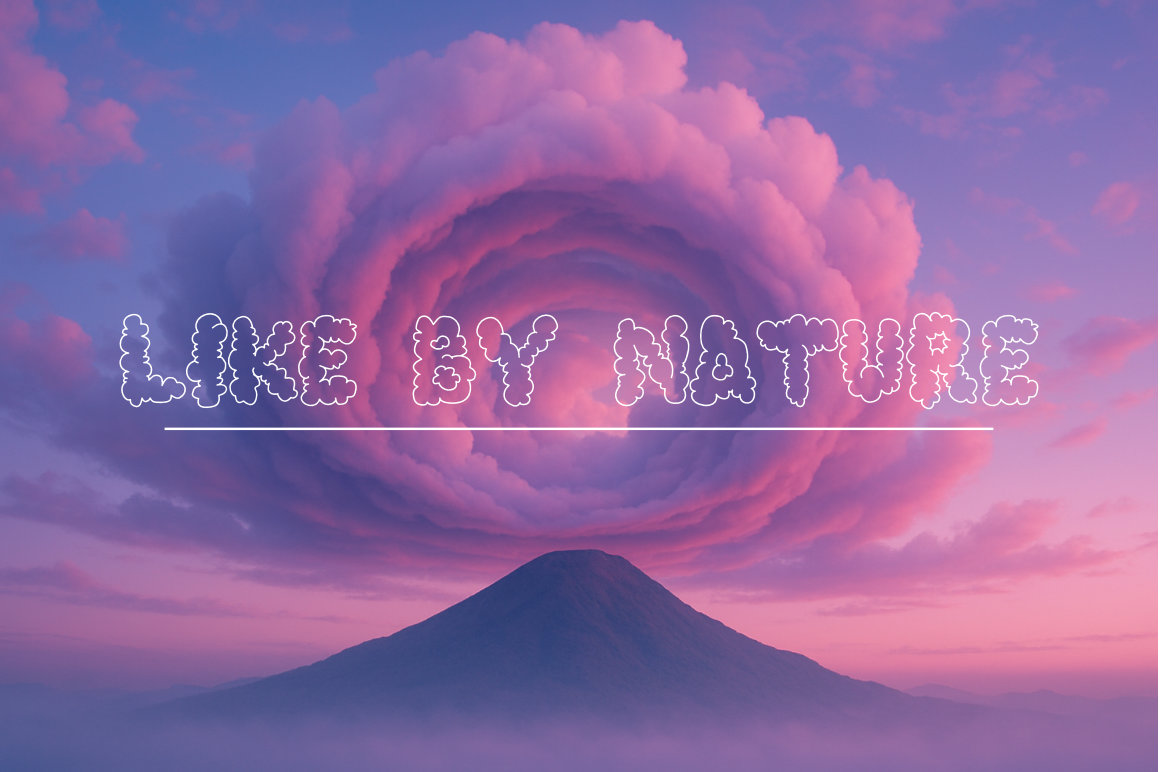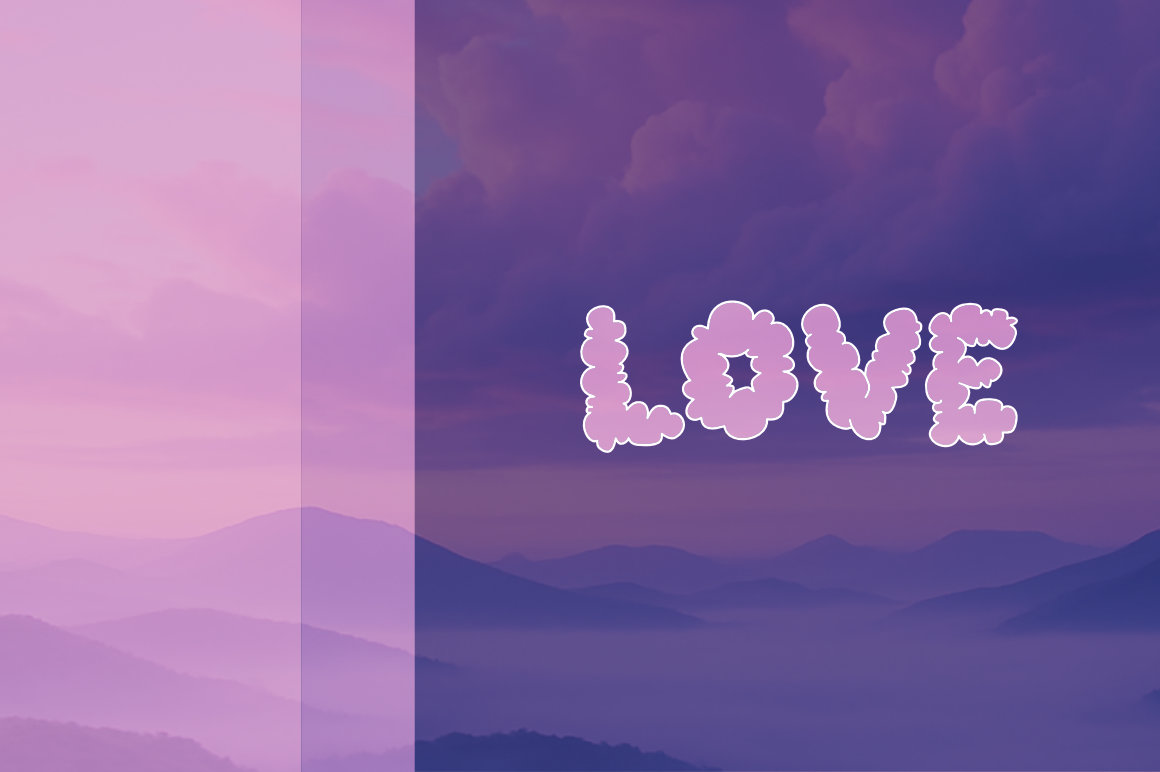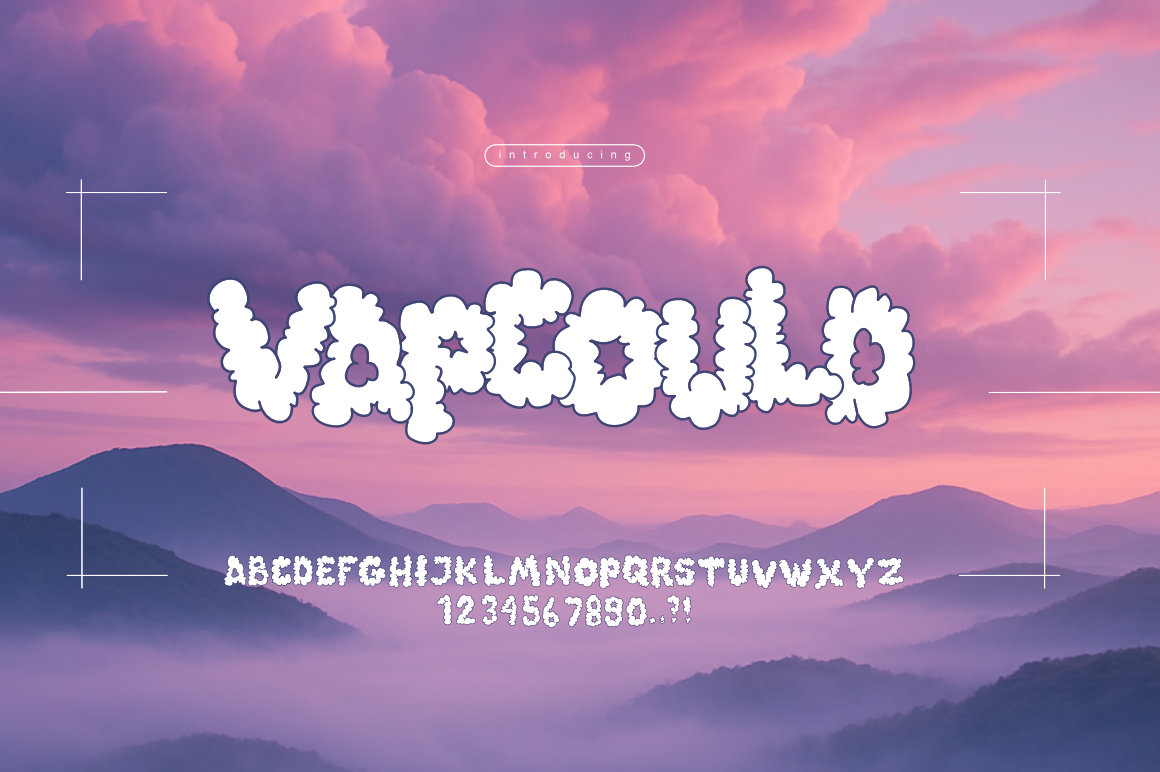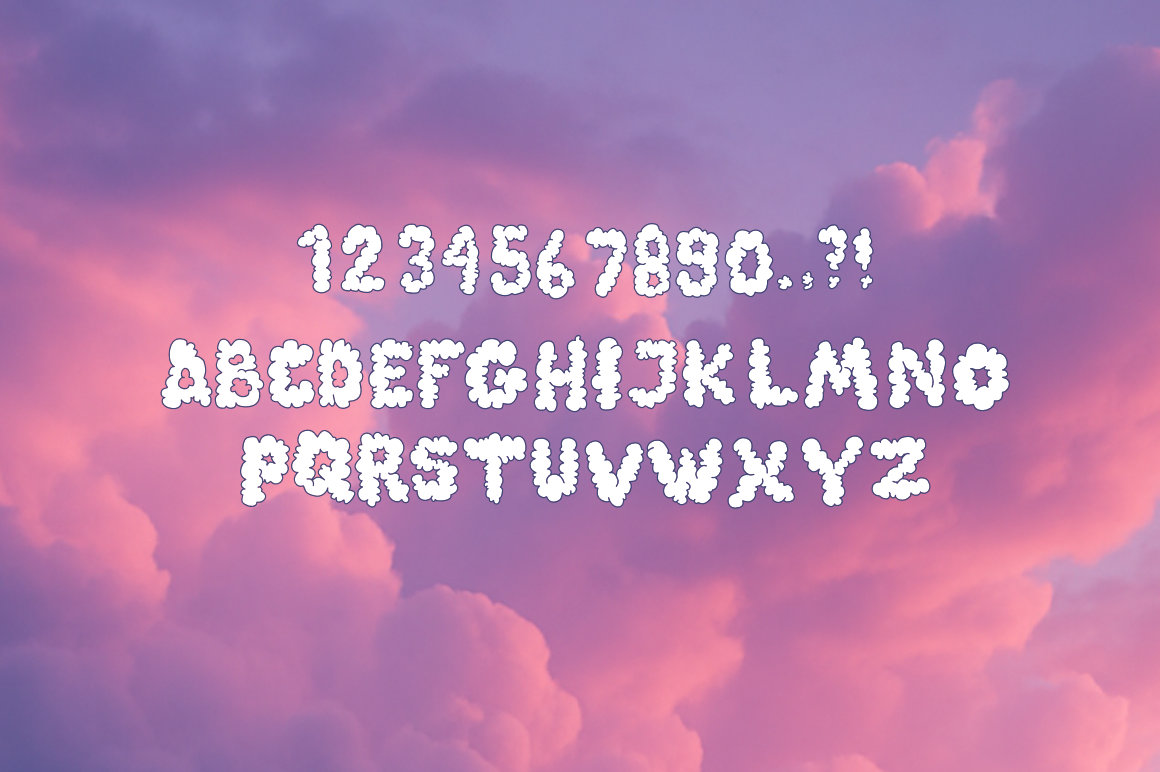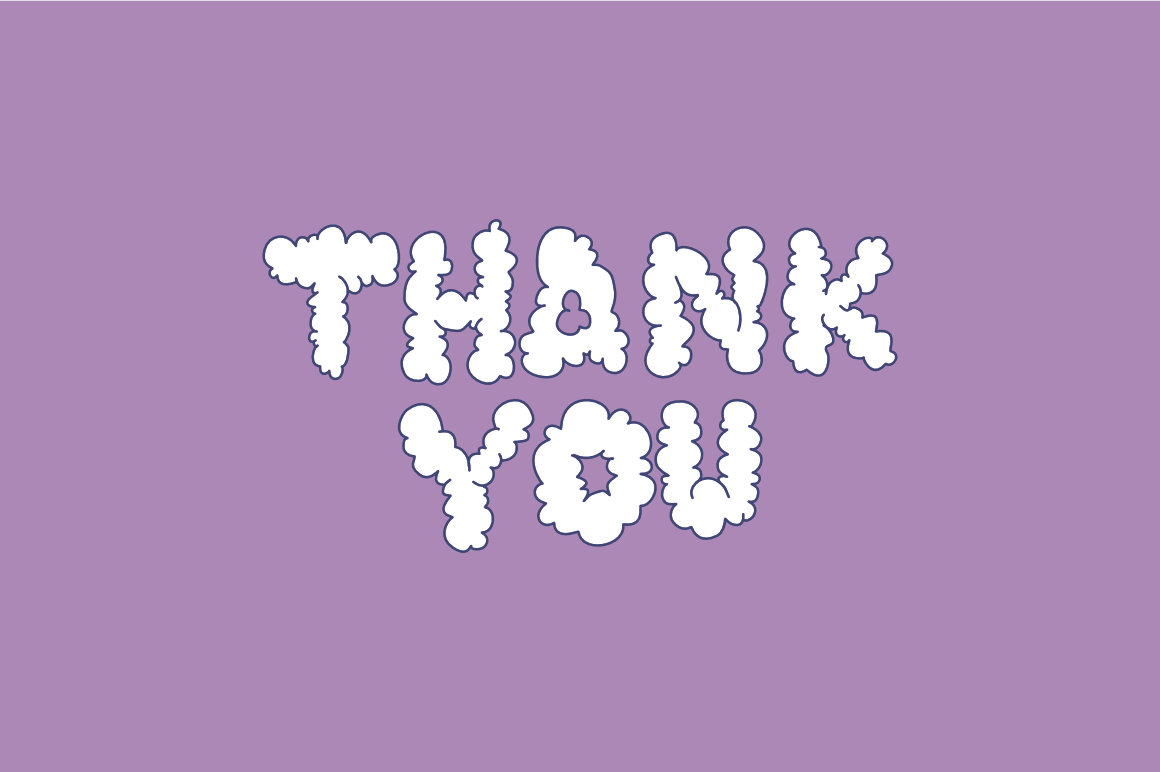
Font Vapcould
Font Vapcould –
Vape Cloud Totem is fat cloud style Font With fatty cloudy Model Font. cloud Totem has a fat bubble character and display typeface. cloud totem is a font inspired by bubble and cloud art styles.
This font is perfect for projects with bubble and cloud themes. But this font is also suitable for logos, branding, greeting cards, invitation cards, advertisements, titles, headlines, book titles, stickers, packaging, quotes, posters, billboards and others.